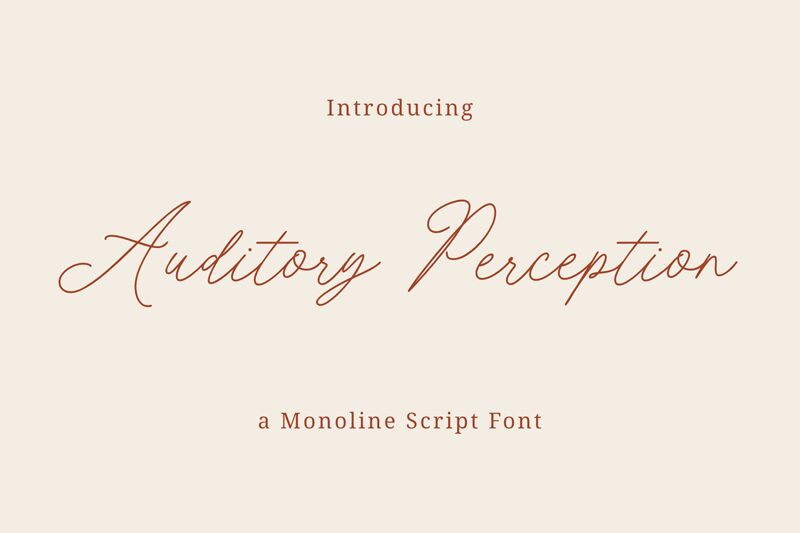
Auditory Perception Regular
Auditory Perception font designed by Niskala Huruf is an elegant and flowing free font which mimics a classic handwritten style. It is sophisticated, refined, and graceful with soft curves combined with beautiful swashes for each letterform as a perfect icing on the cake.
Explore the possibilities of this resource in branding designs, packaging ideas, print projects like greeting cards and invitations. Or use it in assembling digital layouts like social media posts to impress online users.